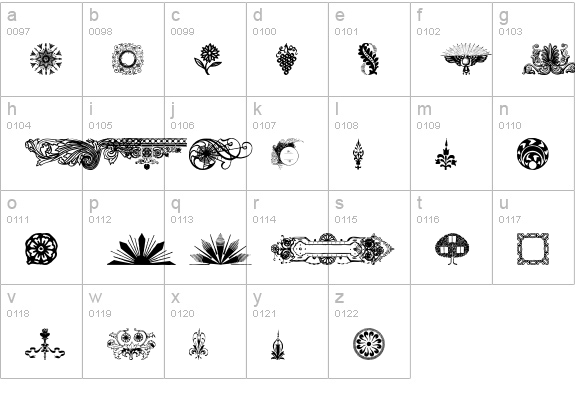
DesignerMotifsTwo font is a stunning and versatile typeface that brings a touch of elegance and sophistication to any design project. This font features intricate motifs and decorative elements that add a unique flair to your text. With its stylish and modern aesthetic, DesignerMotifsTwo is perfect for a wide range of applications, from branding and advertising to invitations and social media graphics. What's even better is that DesignerMotifsTwo is available for free download at FontsMarket.com. This means you can easily access this beautiful font and elevate your designs without any cost. Don't miss out on the opportunity to enhance your projects with the exquisite details and charm of DesignerMotifsTwo font. Download it today and let your creativity shine!